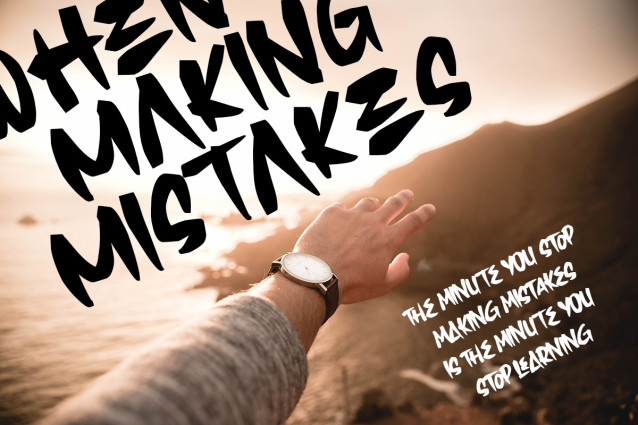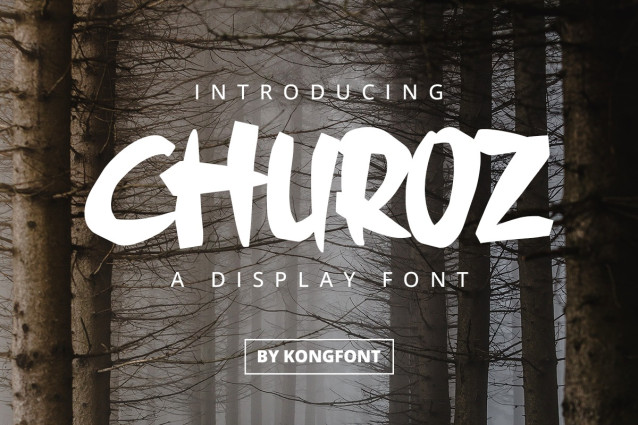
Churoz Display Font
Churoz Display Font is a familiar name for people who follow food trends. This font comes with a simple and standard look. Like without serious writing that is made, this font is unique and different from general display fonts. Churoz Modern Display Font can be applied to event titles that use culinary themes, such as cooking competitions, culinary exhibitions, and launching food places. This font can contribute to building a good impression on everyone who sees it. The events mentioned above try to attract the interest of many people, so the use of fonts must be considered carefully. Apart from the things mentioned above, Churoz Modern Display font is the best font that can be used for fast food and snack brands. This font can be used as a digital font, such as in food advertisements. Churoz font can be used on food promo posters and the introduction of new menus. Our Espot & Futuristic fonts collection is compatible to use as; Figma fonts, Canva fonts, Freepik Fonts, and Adobe Fonts. They also work as Windows Fonts, and Apple Fonts. For your social media needs, you can use and install fonts in our collection of Espot & Futuristic font types to use as Instagram Fonts, Facebook Fonts, and Twitter Fonts.